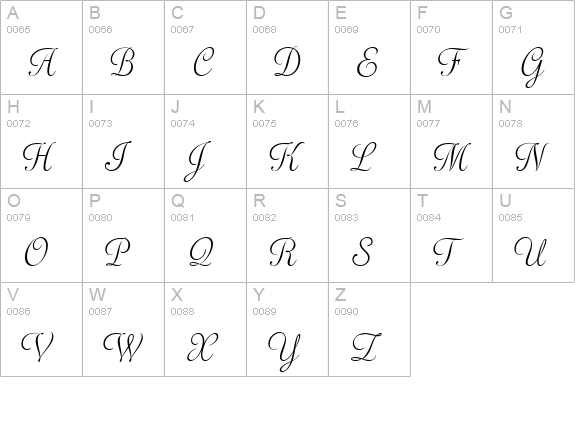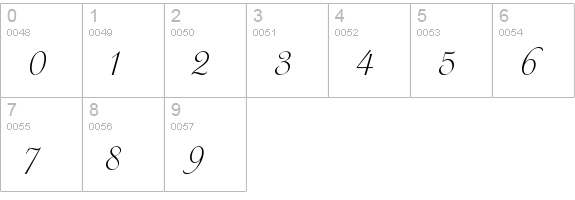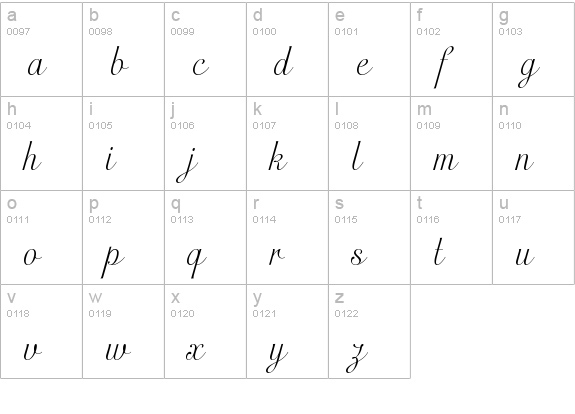
OttumHmk Font Details
The OttumHmk font is a versatile and elegant typeface that exudes sophistication and style. Its sleek lines and modern design make it perfect for a wide range of projects, from branding to editorial design. The font features a unique blend of classic and contemporary elements, giving it a timeless appeal that is sure to make your text stand out. What sets OttumHmk apart is not just its striking aesthetics, but also the fact that it is completely free to download. Yes, you read that right! This high-quality font is freely available for download at FontsMarket.com, making it accessible to designers and creatives of all levels. So go ahead and elevate your designs with OttumHmk – the perfect choice for adding a touch of sophistication to your projects.